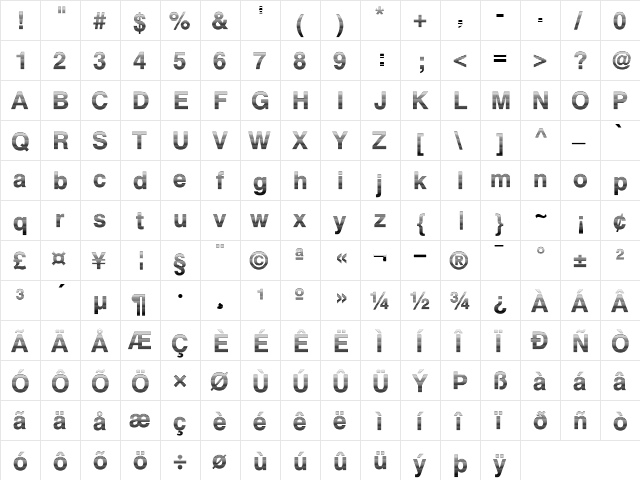
ModernGradate Regular
Design Context for ModernGradate Typeface
ModernGradate is a composed and adaptable typeface that performs quietly and consistently across a wide range of design contexts.